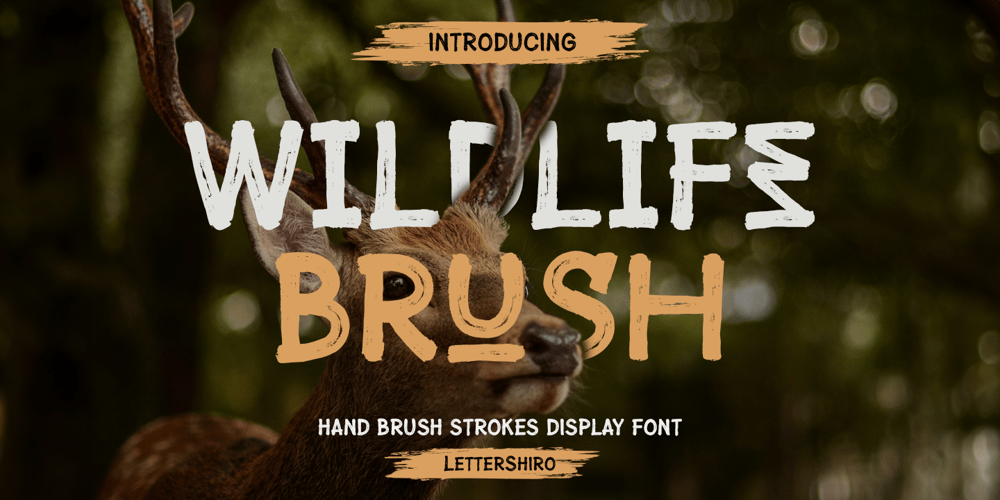
Wildlife Brush
Wildlife Brush font
Wildlife Brush Font Family was designed by Muhammad Sirojuddin and published by Lettersiro. Wildlife Brush contains 1 styles and family package options. Wildlife Brush is a hand brush strokes display font that captures the raw, untamed essence of nature. Perfect for wildlife designs, documentaries, animal posters, and zoo-themed projects, this font brings a rustic, organic feel to your work. The brush stroke texture adds a sense of authenticity and wildness, making it ideal for any design that aims to connect with the natural world. Whether you’re creating a poster for a wildlife documentary or branding for a nature park, Wildlife Brush delivers a wild yet elegant touch to your visuals.–Uppercase